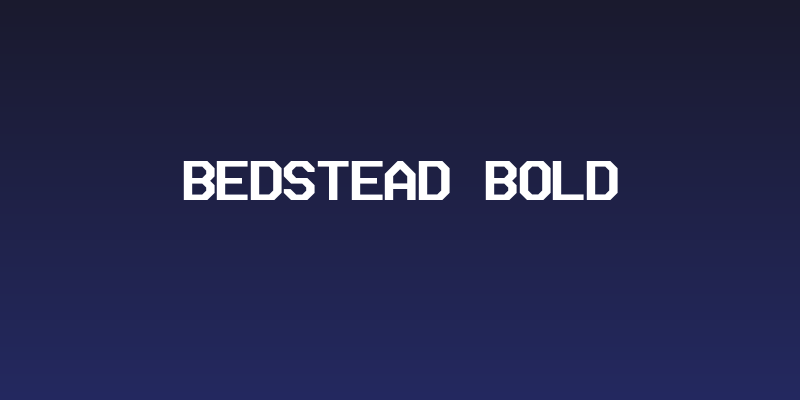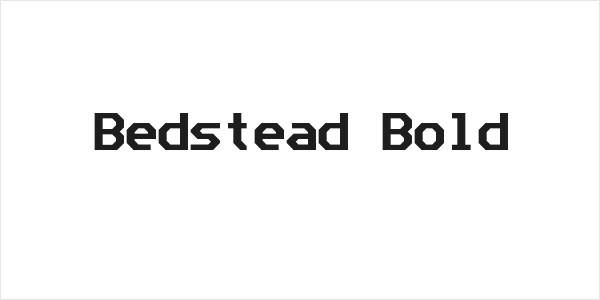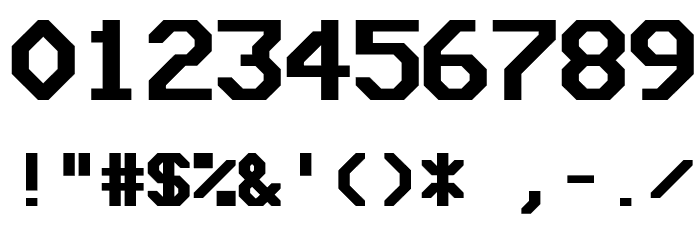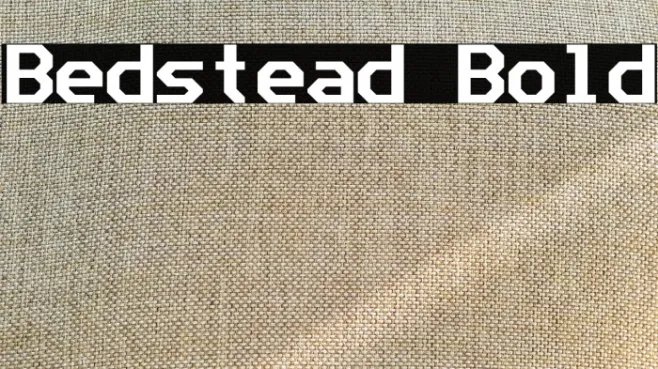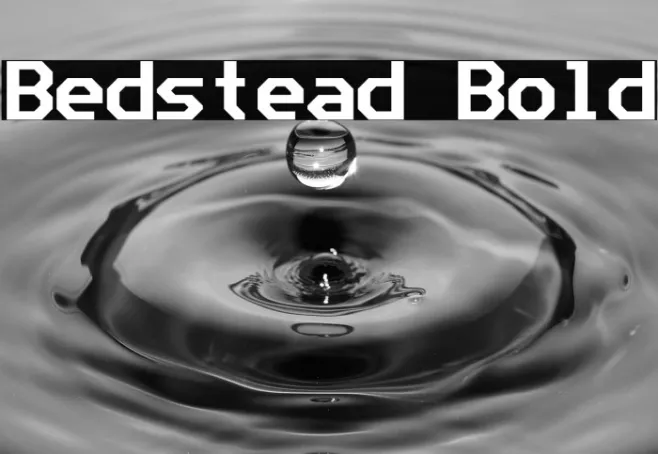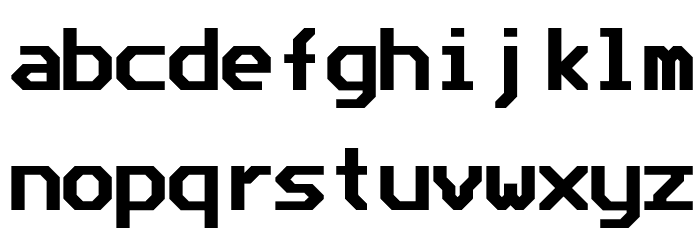
Bedstead Bold Font
Bedstead Bold Description
This font features a bold and geometric design, characterized by its blocky and angular letterforms. The uppercase and lowercase letters maintain a consistent structure, with sharp edges and a uniform stroke width that gives it a strong, impactful appearance. The numerals and special characters follow the same design principles, ensuring a cohesive look across all glyphs. Its distinct style makes it highly legible and suitable for attention-grabbing applications. The font's design is reminiscent of early digital or pixelated typefaces, offering a retro yet modern aesthetic.
| Proposed Projects | Ideal for digital art, retro-themed designs, video game interfaces, posters, and branding projects that require a bold statement. |